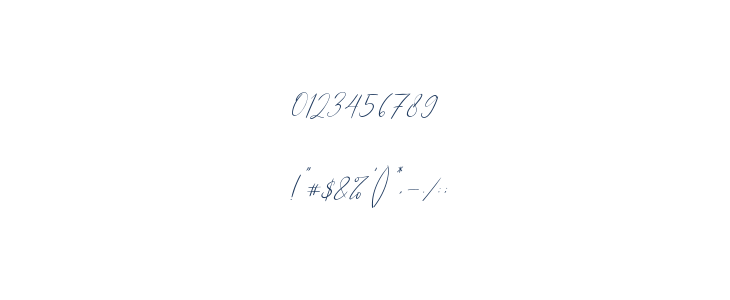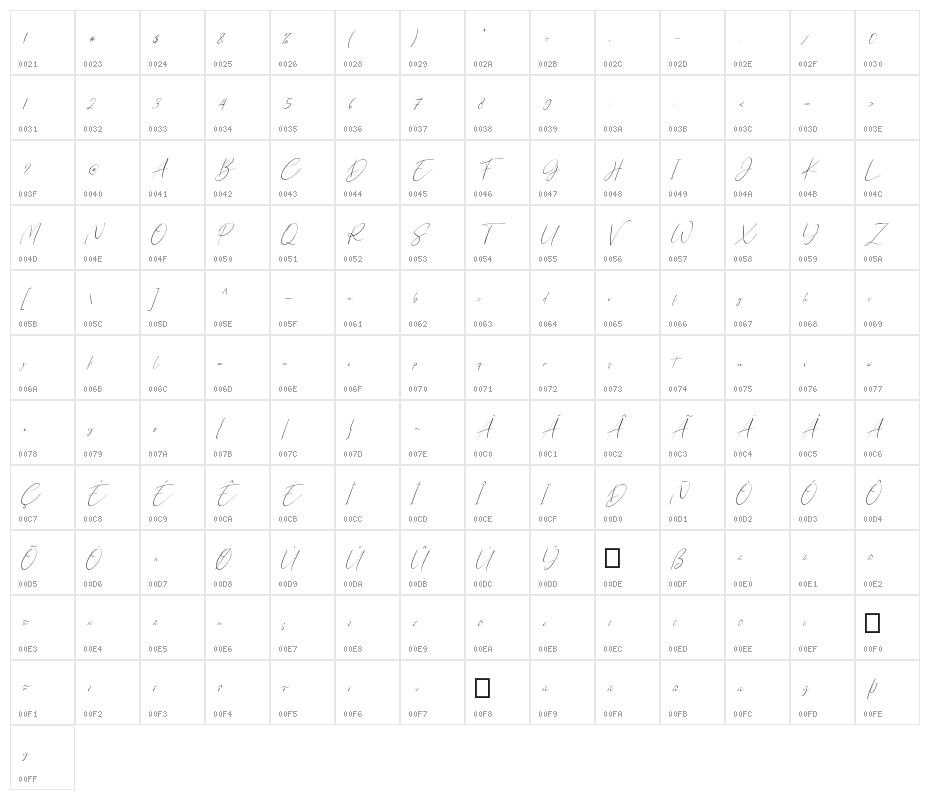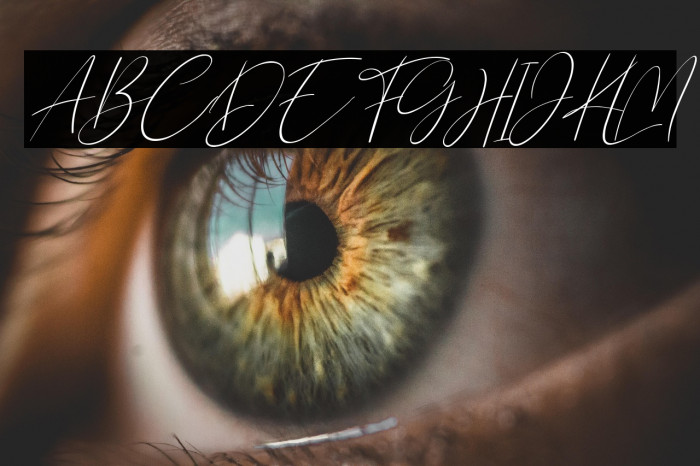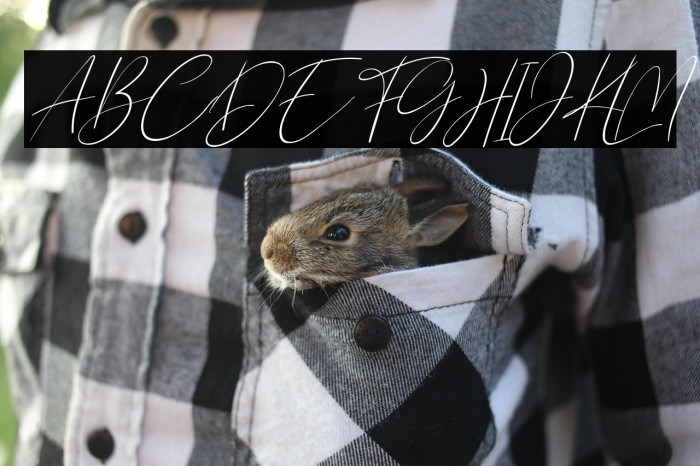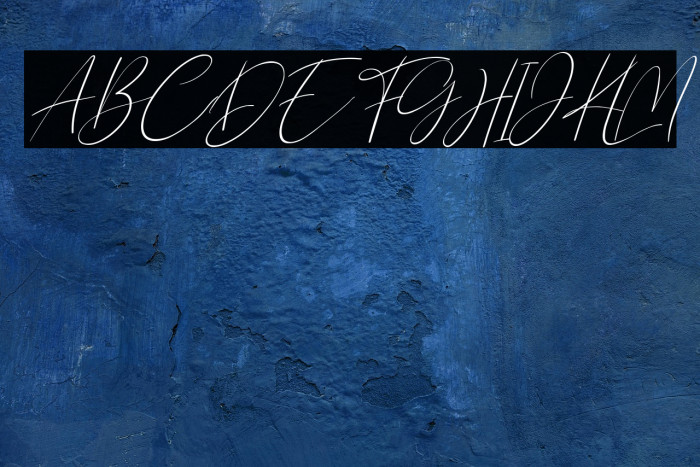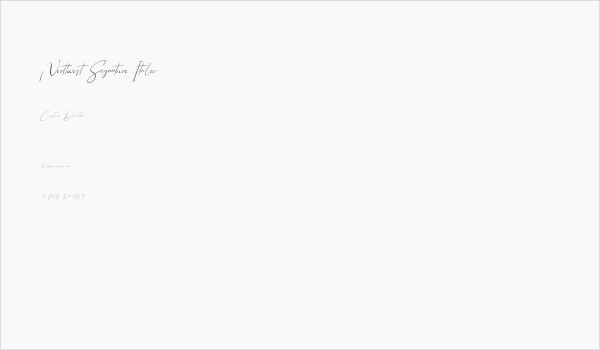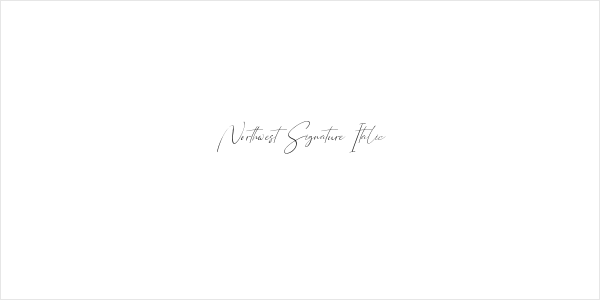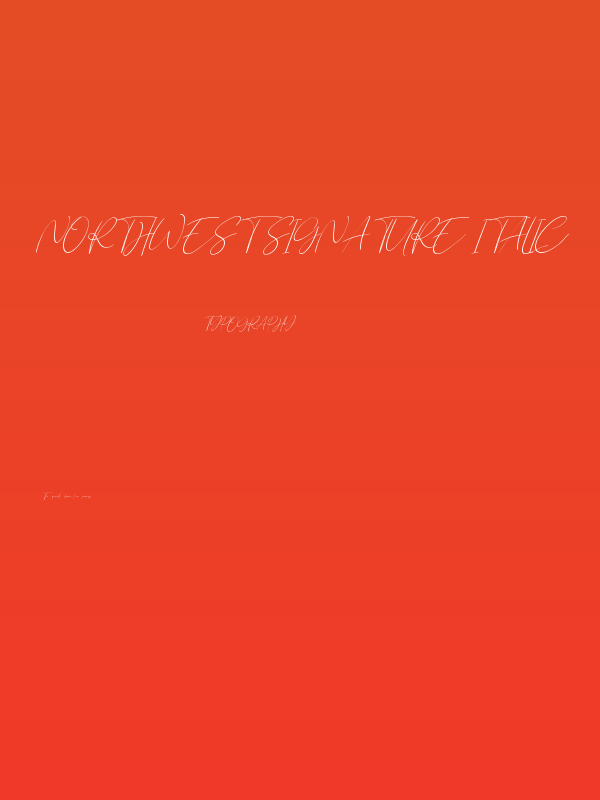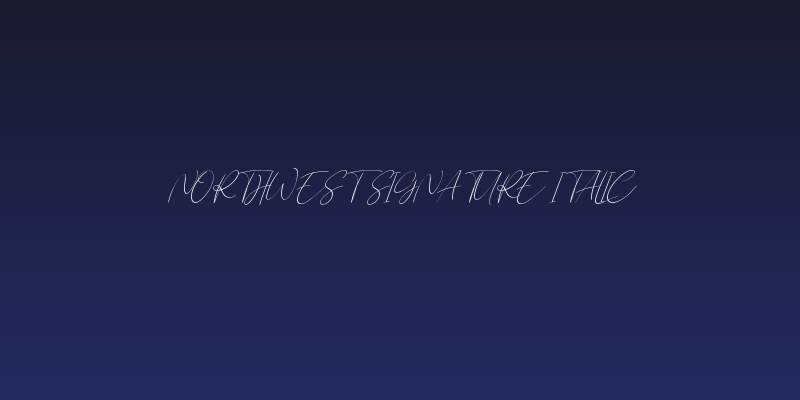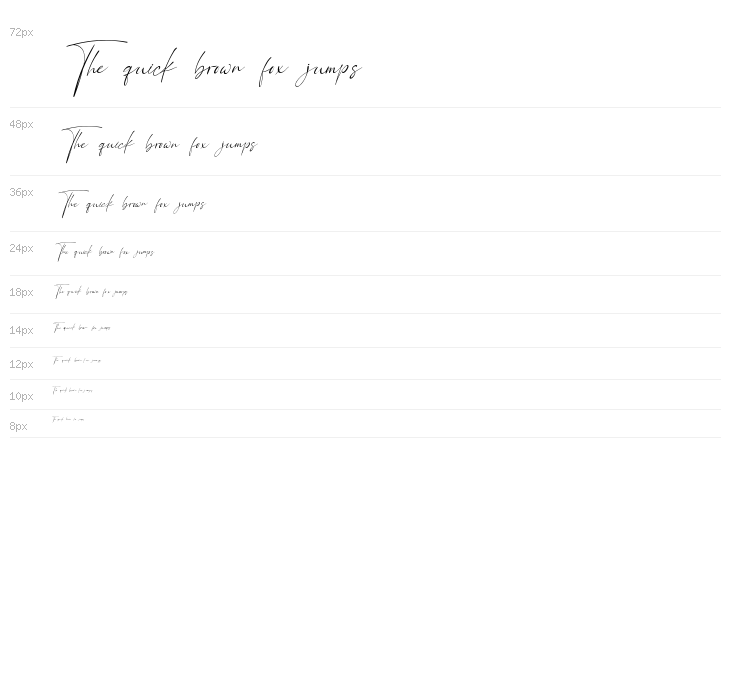
Northwest Signature Italic Font
Northwest Signature Italic Description
This elegant script font exudes a sense of sophistication and fluidity, characterized by its flowing, cursive strokes and graceful curves. The letters are interconnected, creating a seamless and harmonious appearance. The thin, delicate lines give it a refined and airy feel, while the slight slant adds a dynamic touch. This font is perfect for conveying elegance and style, making it ideal for formal invitations, branding, and high-end product packaging. Its artistic flair and attention to detail make it stand out, capturing the essence of a handwritten signature with a modern twist.
Use CaseLogos, Invitations, Branding
Proposed ProjectsIdeal for wedding invitations, luxury branding, and elegant product packaging.